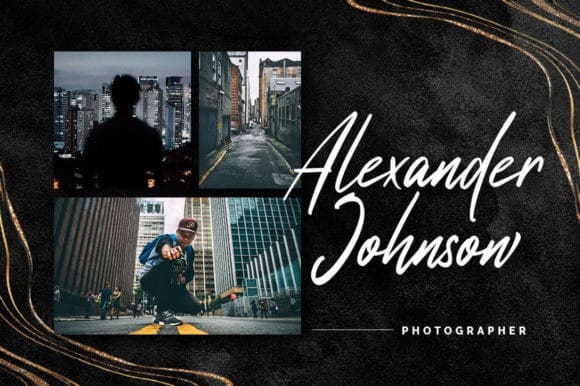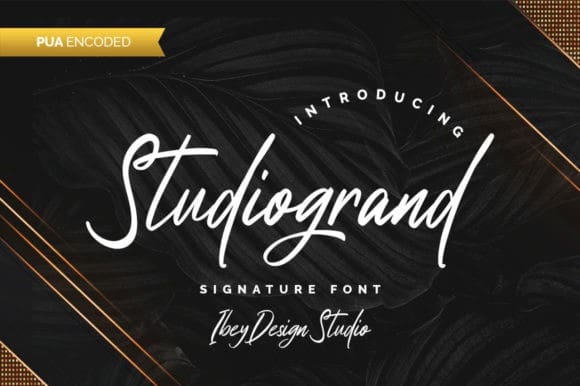
Studiogrand Script Font
Studiogrand Script Font is a signature font that lets you achieve a customized feeling. Get inspired by its classic style. This font is PUA encoded which means you can access all of the glyphs and swashes with ease!